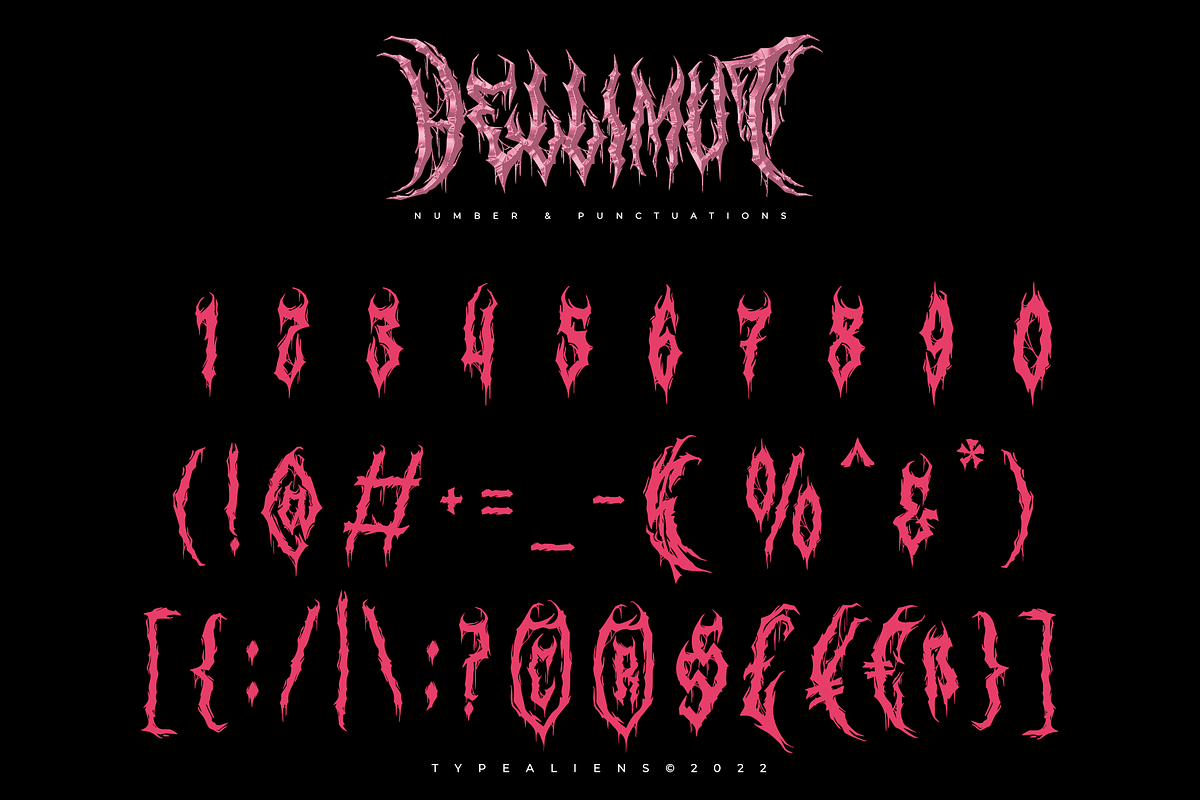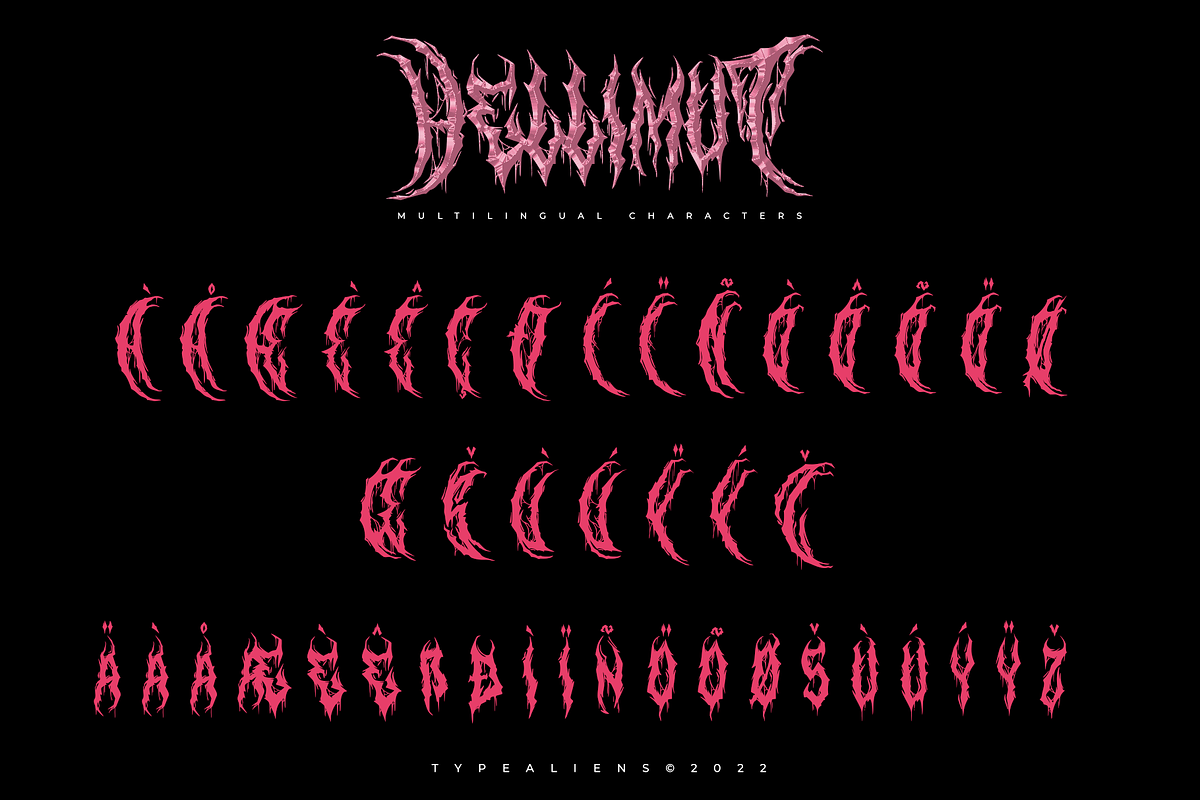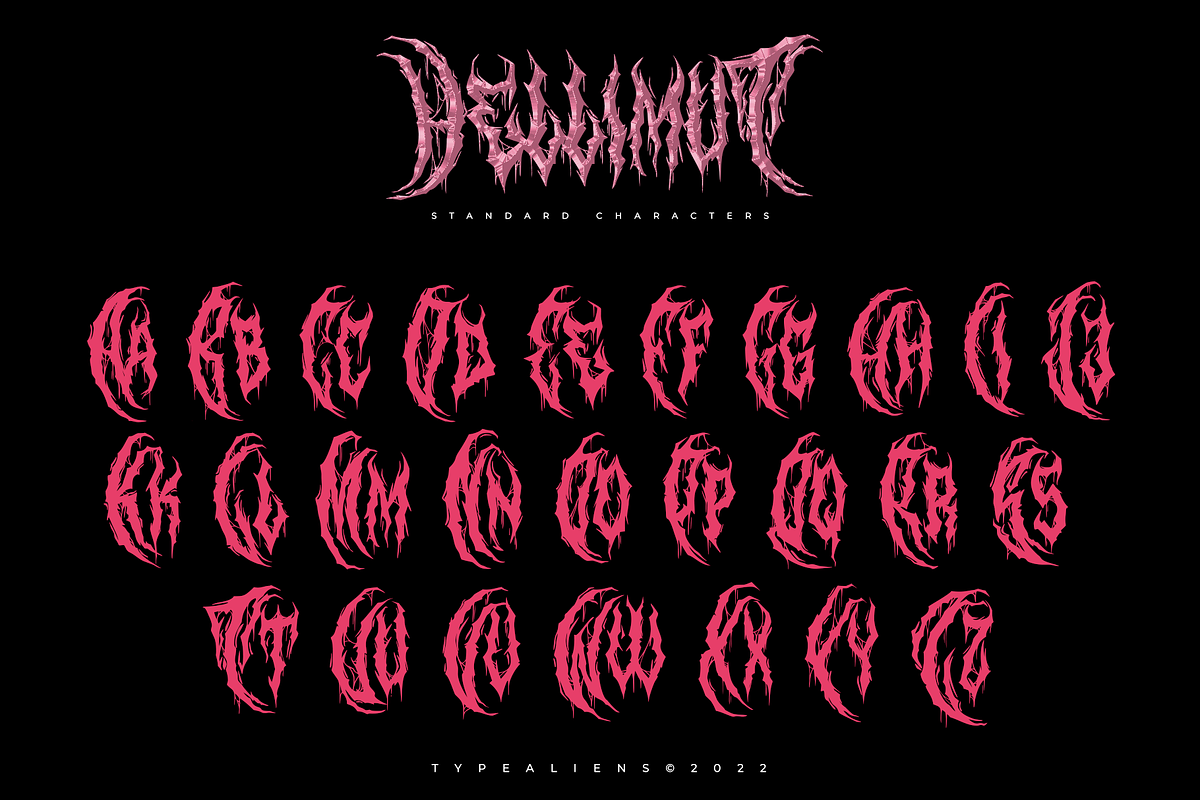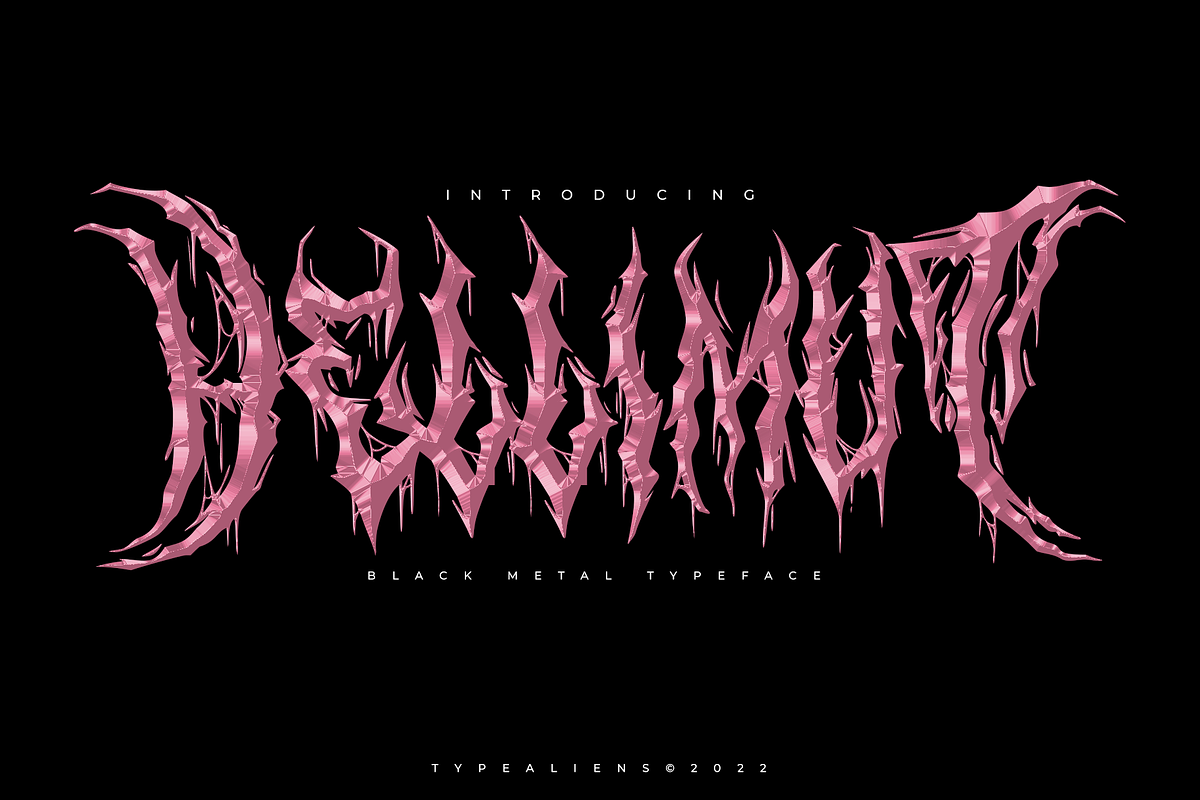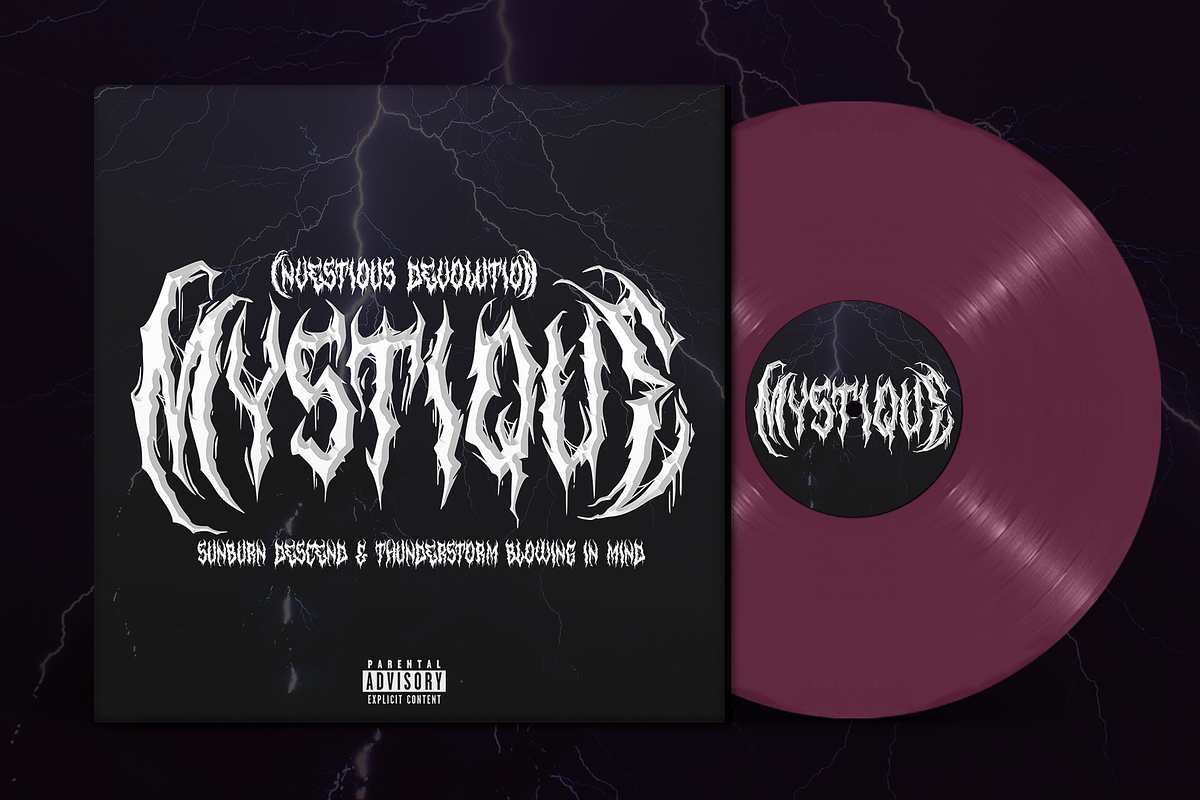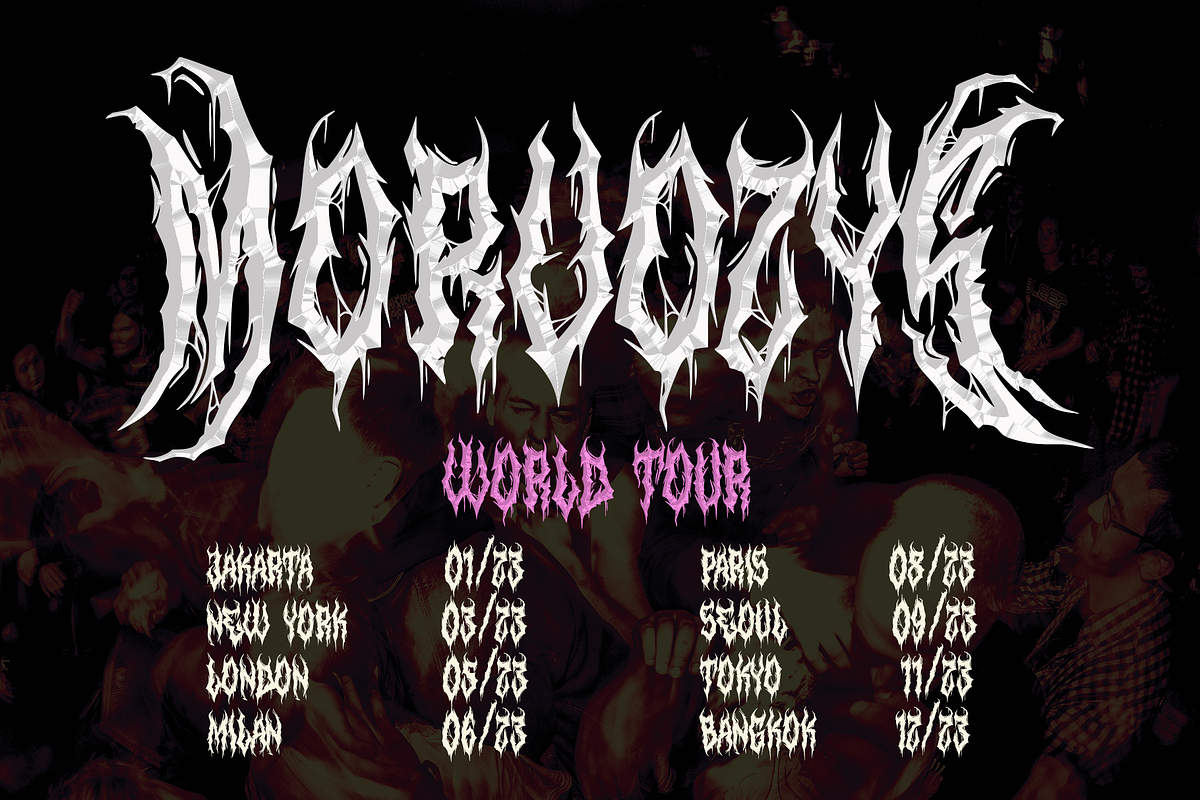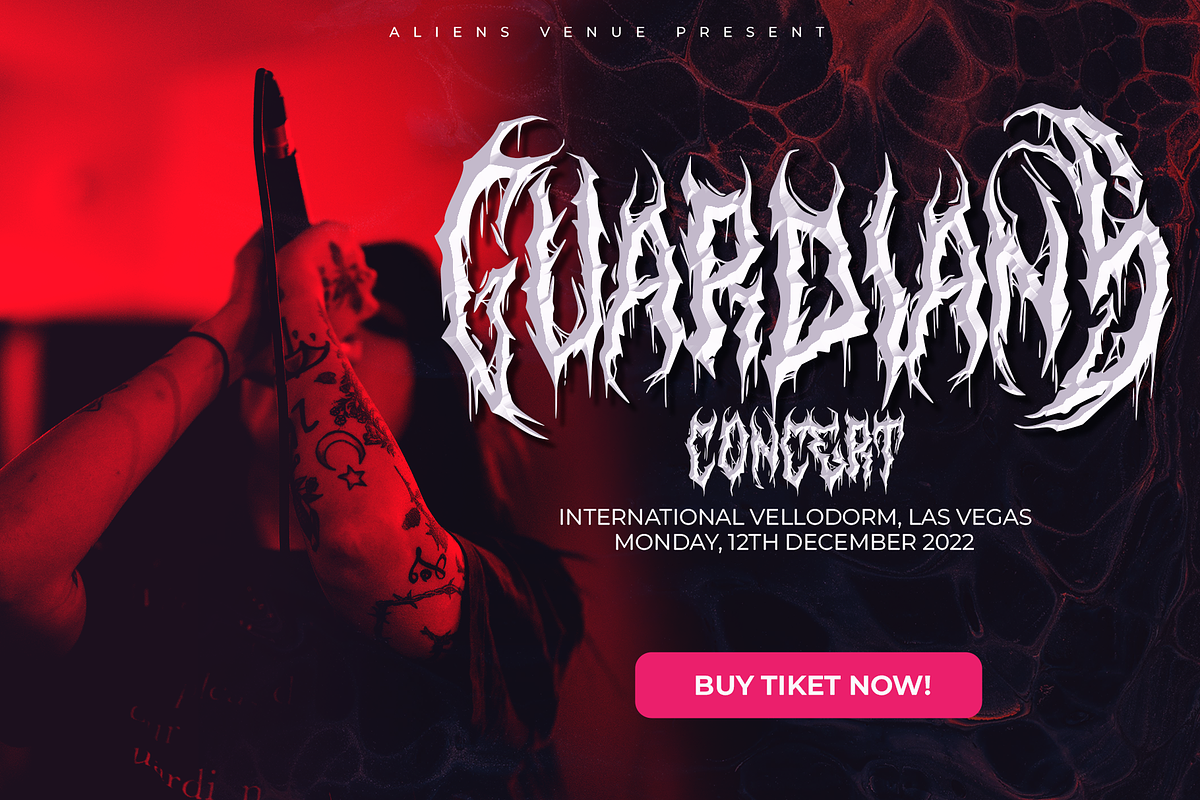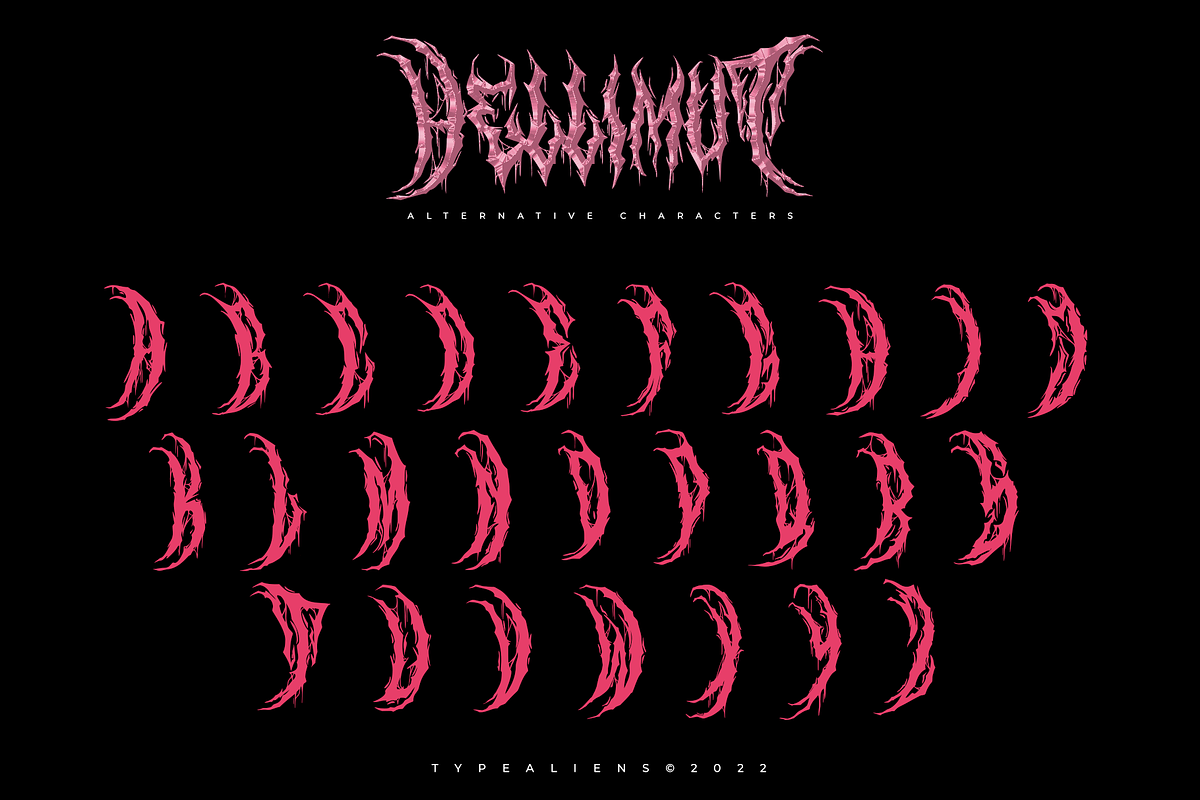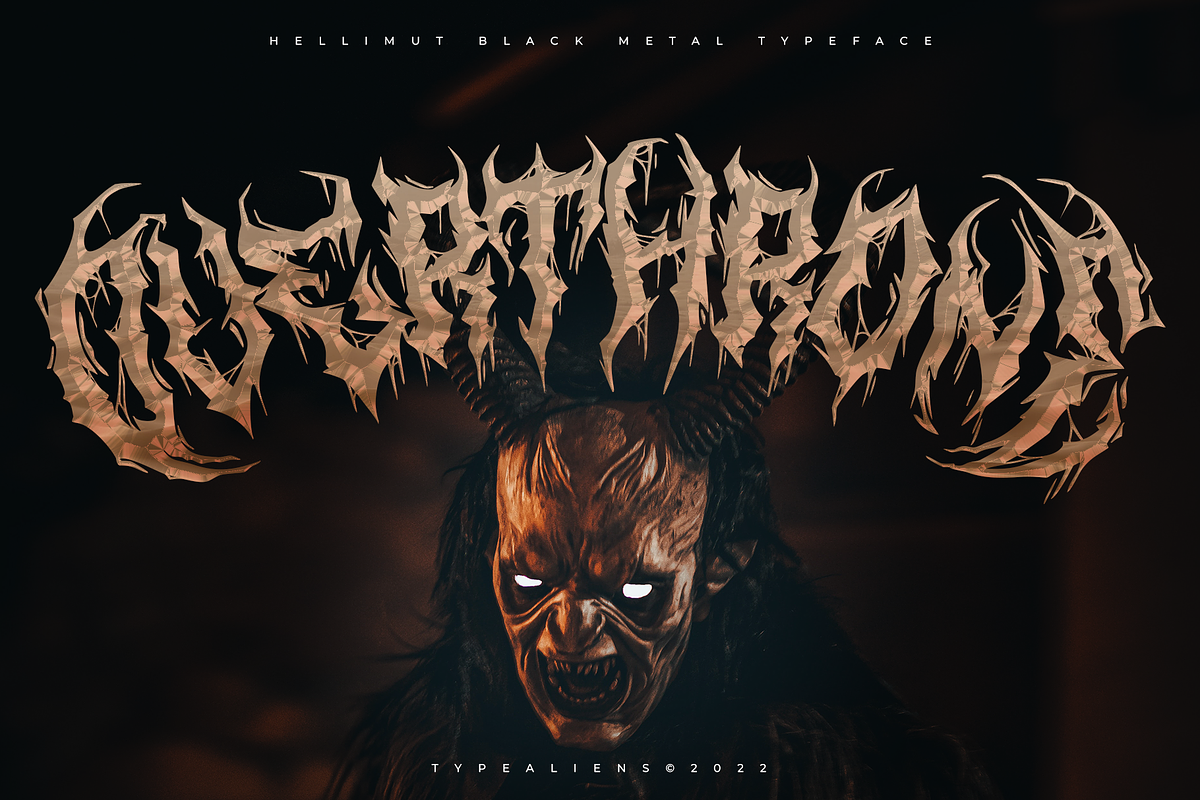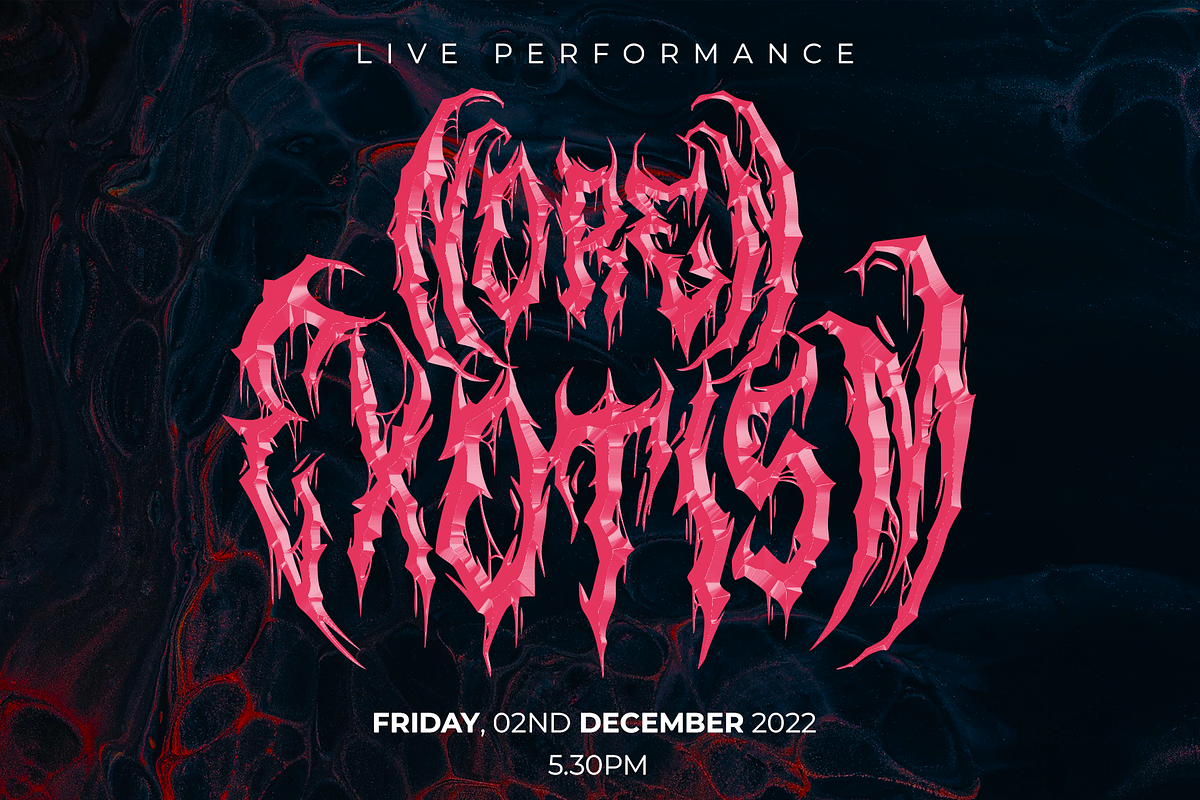
Hellimut for Band & Music
HELLIMUT
Hellimut is a gothic font modified from a serif font, by adding additions such as "roots" to produce a unique font commonly used for logos of metal bands or underground bands or band concert posters. This scary-looking and complicated font isn't suitable for a paragraph, as it's really just a display font. This serif development can be categorized into modern fonts.